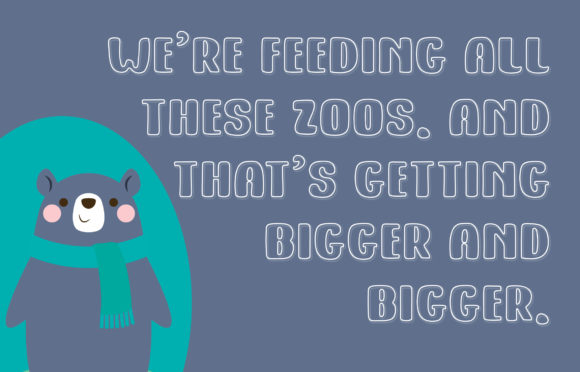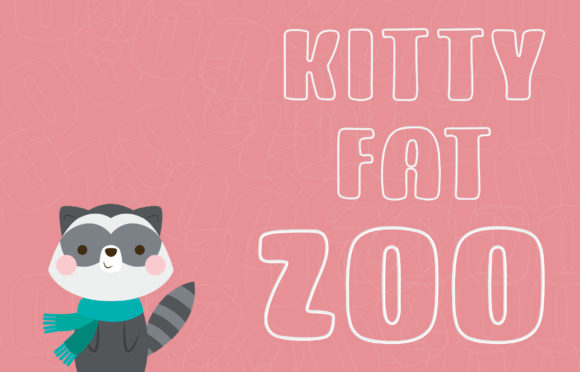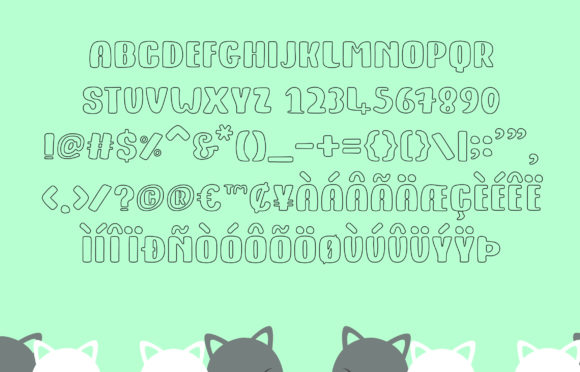
Have you ever stared at a blank canvas or a blank page, waiting for inspiration to strike? For many creatives, those moments of blankness can be the most frustrating – and yet, they can also be the most exciting. It’s in those moments that we search for the perfect tools to bring our ideas to life, and for many designers, that tool is the right font.
Enter the Kitty Fat Outline Font, a playful display font designed to add a touch of whimsy and charm to your crafting projects. With its bold and smooth style, this font is perfect for creating eye-catching titles, headings, and labels that will make your projects stand out. Whether you’re a seasoned crafter or a DIY newbie, the Kitty Fat Outline Font is a valuable addition to your design toolkit.
Kitty Fat Outline Font Key Features
- Unique Characteristic: The Kitty Fat Outline Font features a unique, playful design with bold outlines and rounded edges, making it perfect for adding a touch of whimsy to digital and print materials.
- Character Set: The font includes a comprehensive set of characters, including uppercase and lowercase letters, numbers, punctuation marks, and special characters, ensuring that users can express themselves freely.
- Style Variations: The Kitty Fat Outline Font offers a range of style variations, including regular, bold, italic, and bold italic, allowing users to choose the perfect look for their project.
Kitty Fat Outline Font Review
First off, I really like the aesthetic of the Kitty Fat Outline Font. ✨ The playful, hand-drawn style adds a touch of whimsy to any design project. The bold lines and rounded edges make it perfect for titles, headings, and other text elements that need a bit of flair. ✨ I’ve also found it to be quite versatile, working well in a variety of contexts, from children’s book illustrations to social media graphics.
One area where the font falls short is in its readability. ⚠️ The letters can be quite condensed, making it difficult to read at smaller font sizes. Additionally, the outline effect can sometimes make it hard to distinguish between similar letters. ⚠️ This can be a problem in situations where clarity is key, such as in body text or captions.
Overall, I think the Kitty Fat Outline Font is a great addition to any designer’s toolkit. While it may have some limitations, its unique style and versatility make it a great choice for the right projects. With a bit of careful consideration, you can use this font to add some real visual interest to your designs.
- Playful, hand-drawn aesthetic
- Bold lines and rounded edges
- Perfect for titles, headings, and other text elements
- Great for children’s book illustrations and social media graphics
Getting the Most Out of Kitty Fat Outline Font
To get the most out of Kitty Fat Outline Font, use it to create eye-catching headings and titles. This font is perfect for adding a playful touch to your designs.
– Blog post headings
– Infographics
– Marketing materials